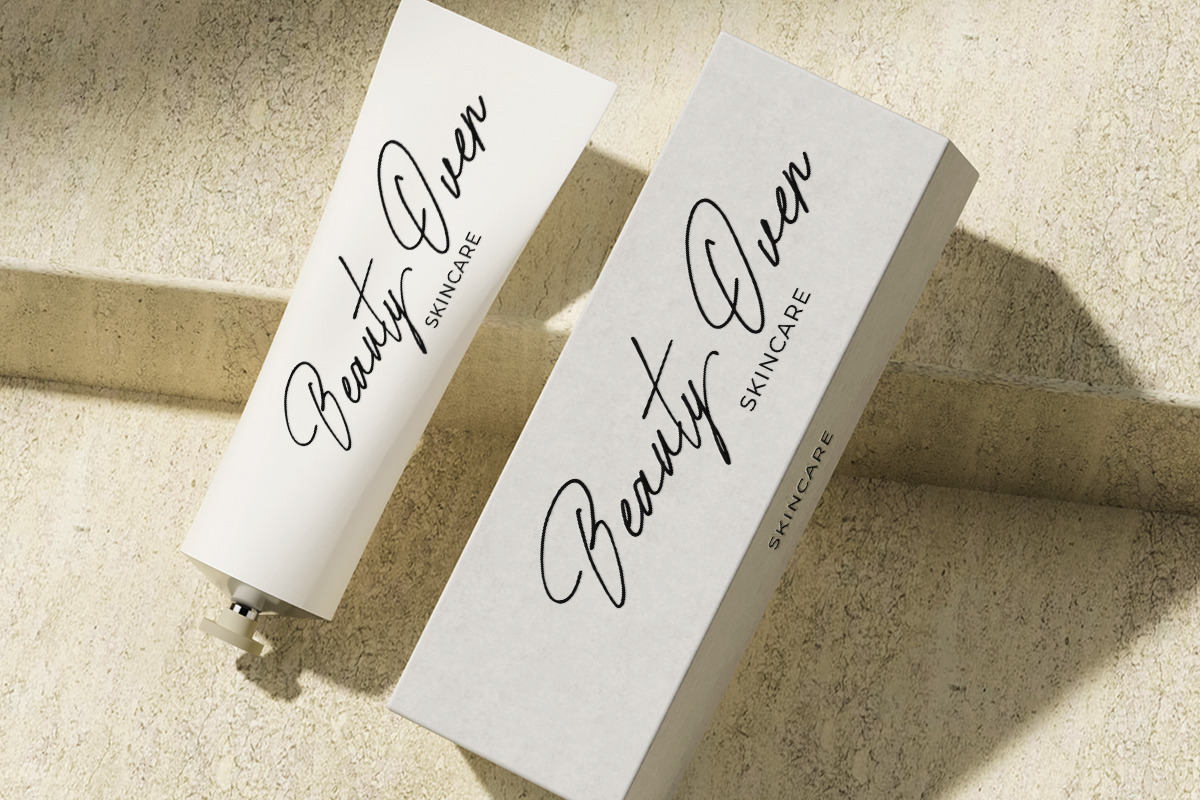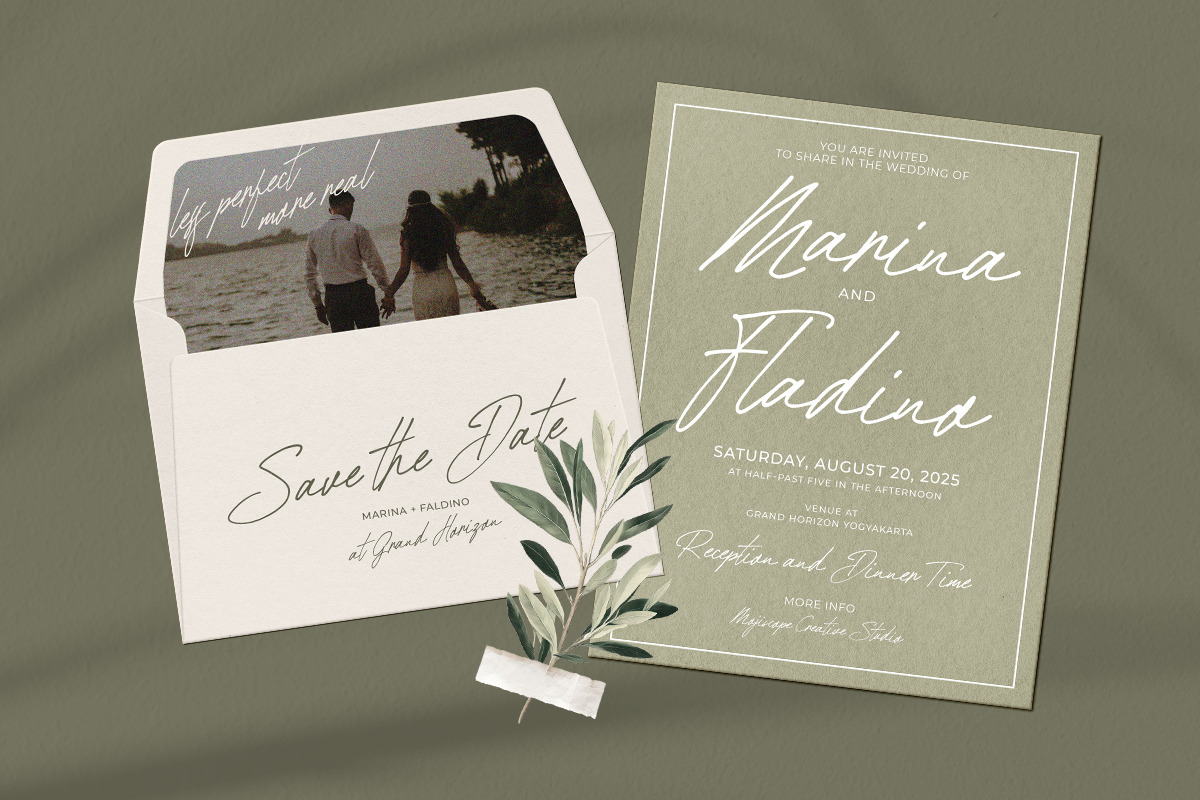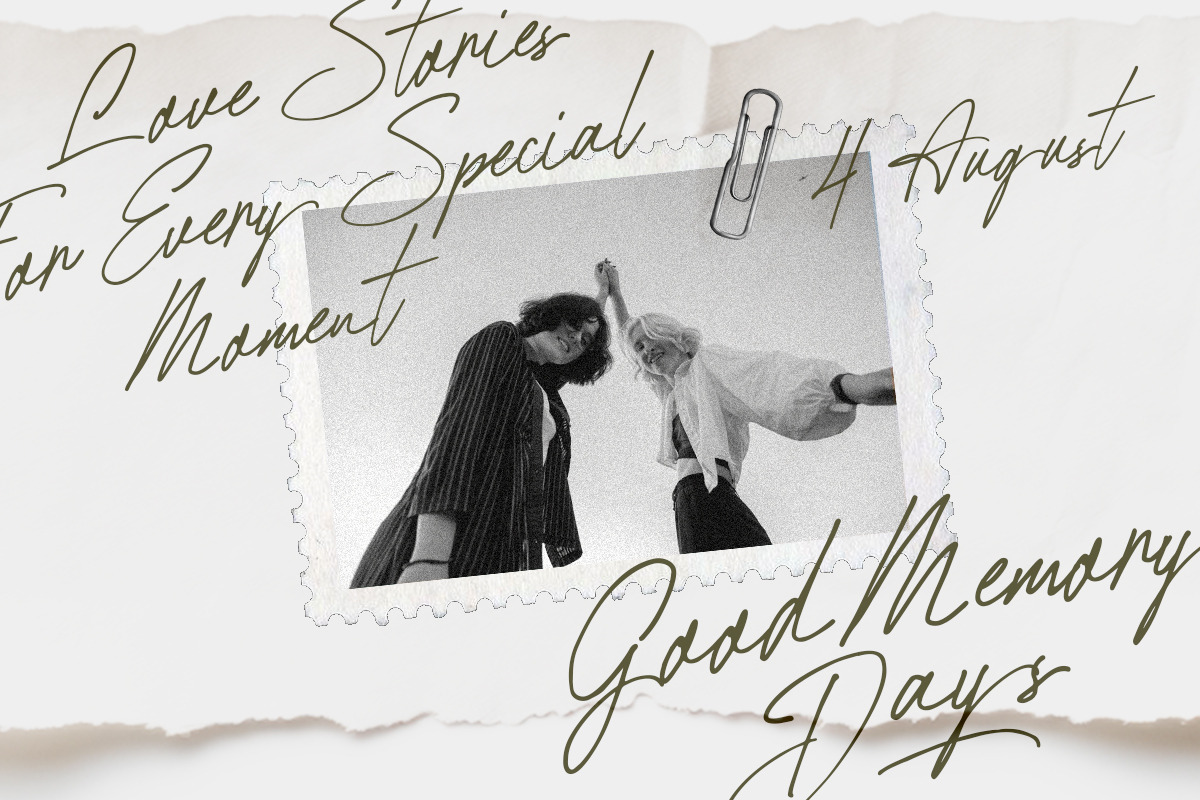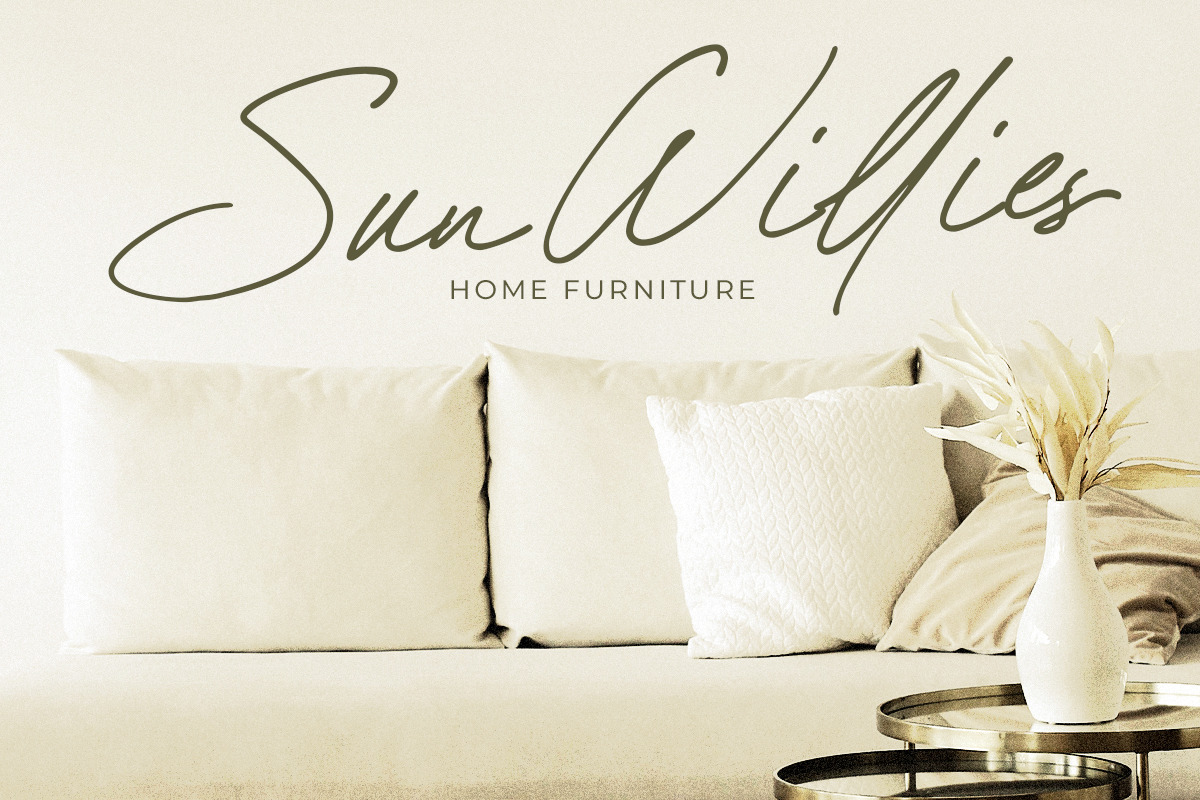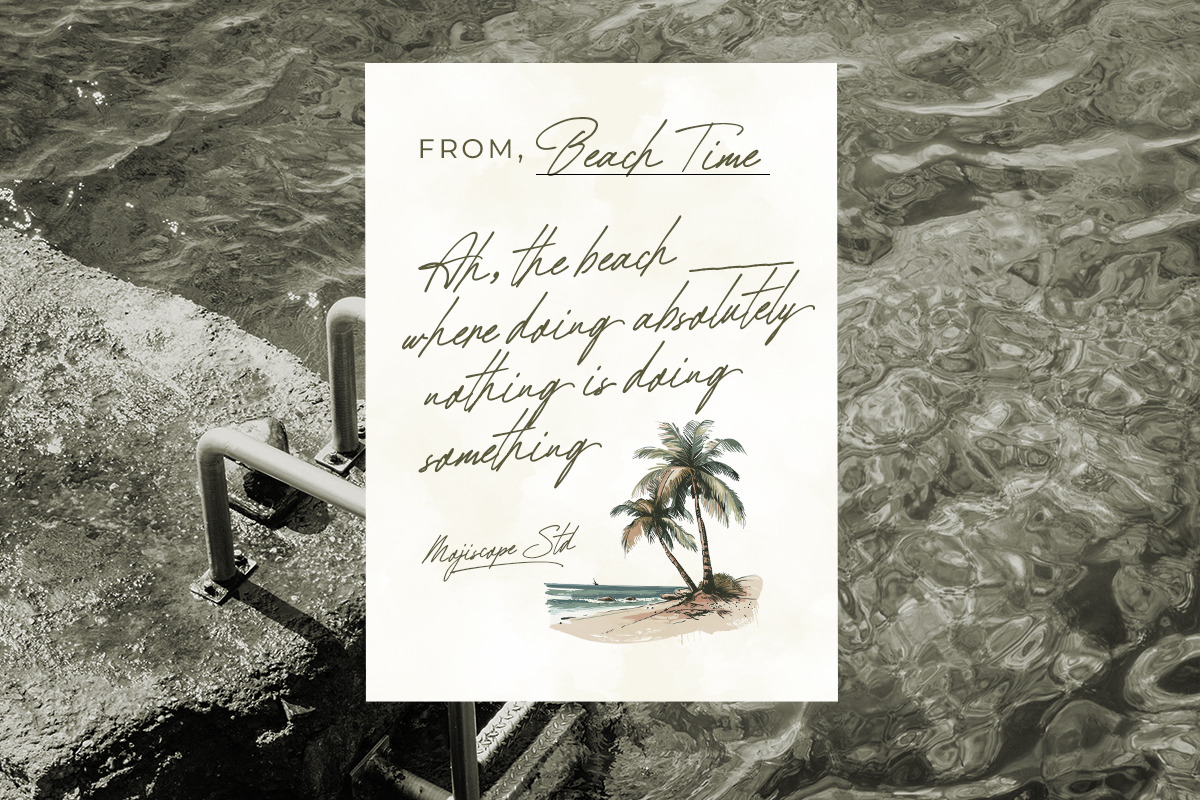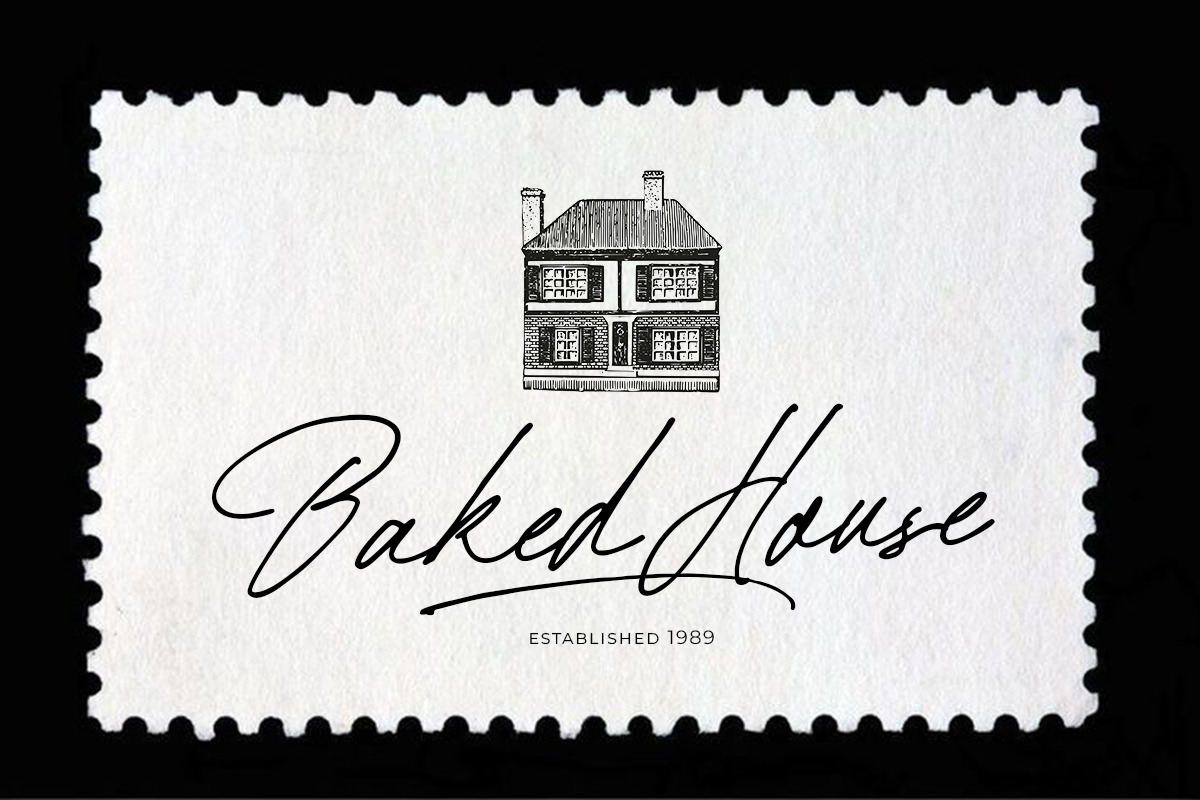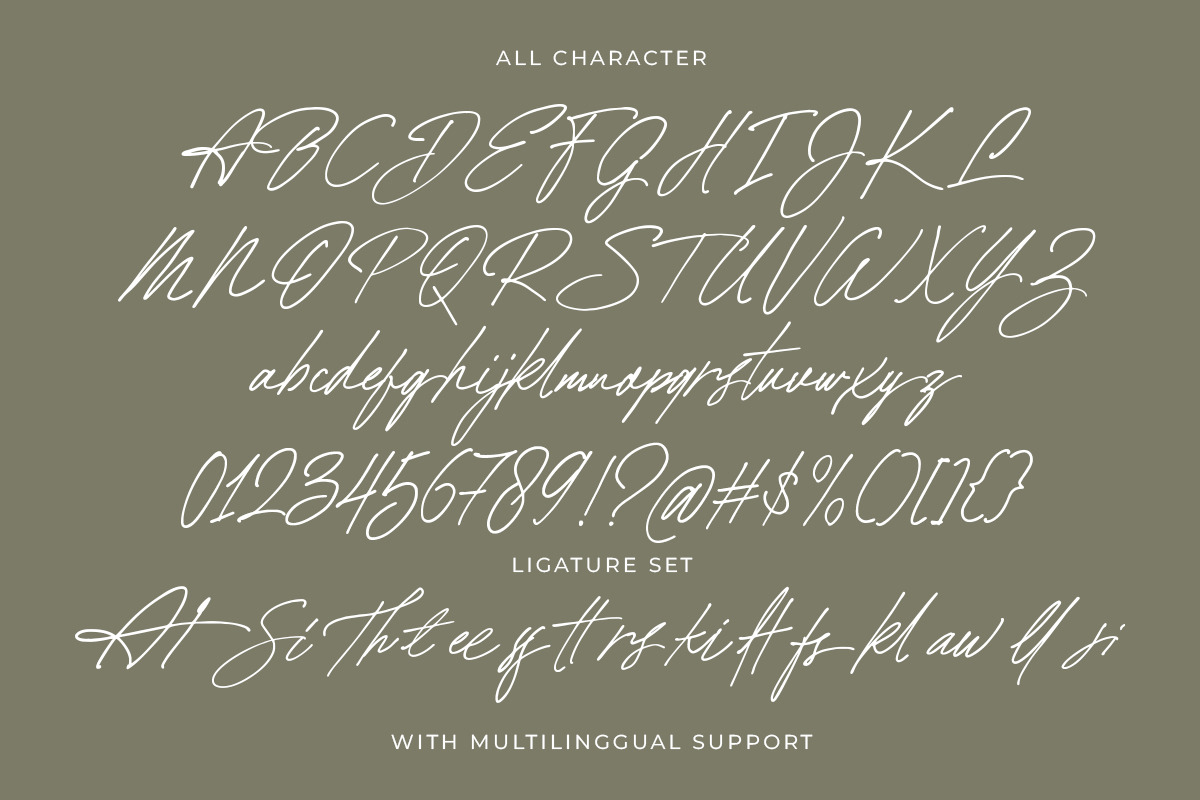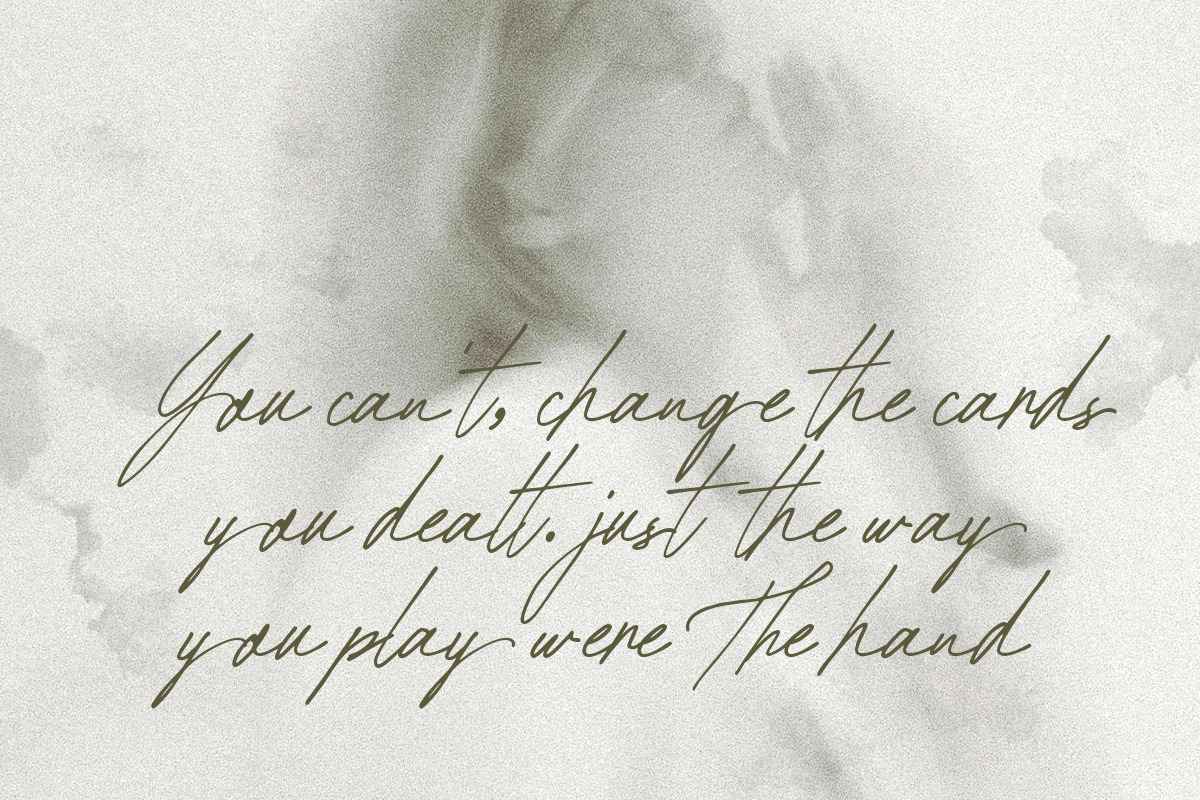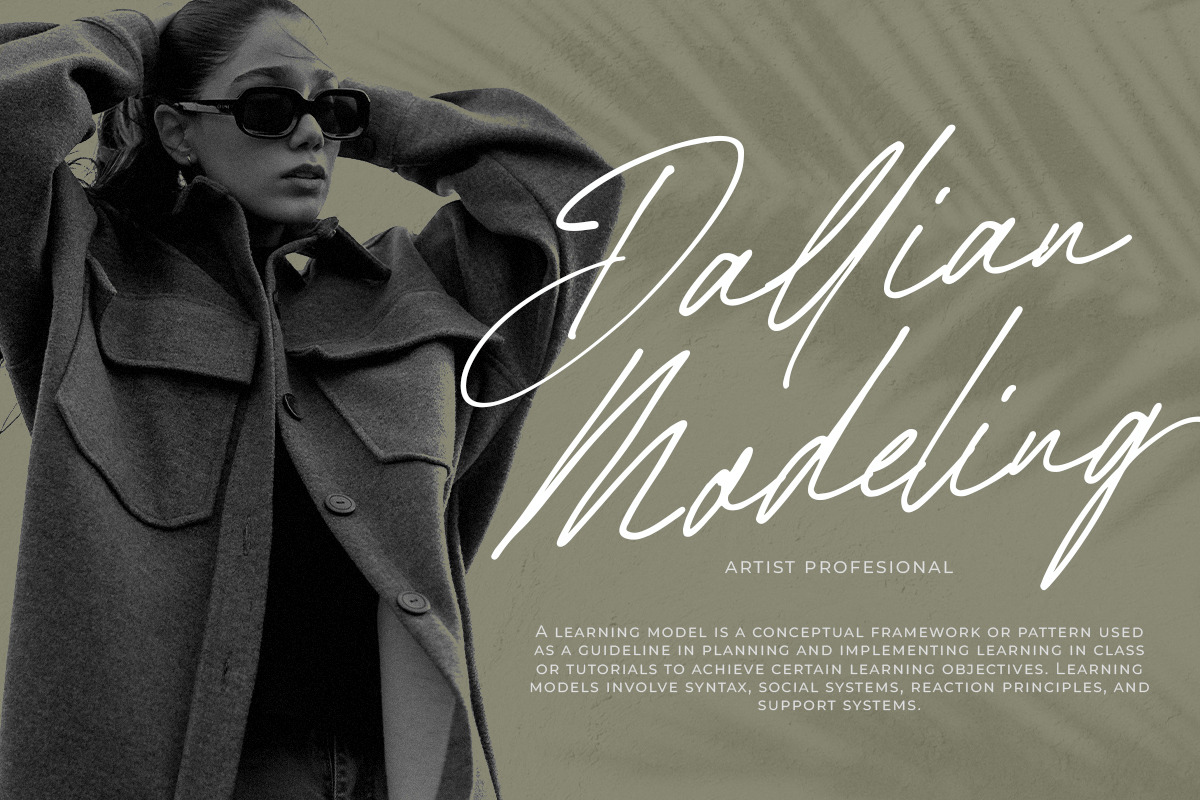
MCO - Sirellia
Sirellia is a captivating script font that's perfect for completing your script font collection. This typeface exudes elegance and charm, making it ideal for projects that require a touch of sophistication and personal flair. Sirellia features fluid, connected strokes that mimic authentic handwriting, giving your designs a warm and inviting feel. Its versatility shines through in various applications, from wedding invitations and greeting cards to branding, packaging, and editorial design. With its beautiful ligatures and stylistic alternates, Sirellia offers a rich array of creative possibilities, allowing designers to craft unique and expressive typographic compositions. If you're looking for a font that combines classic beauty with modern readability, Sirellia is an excellent choice to elevate your visual communication.